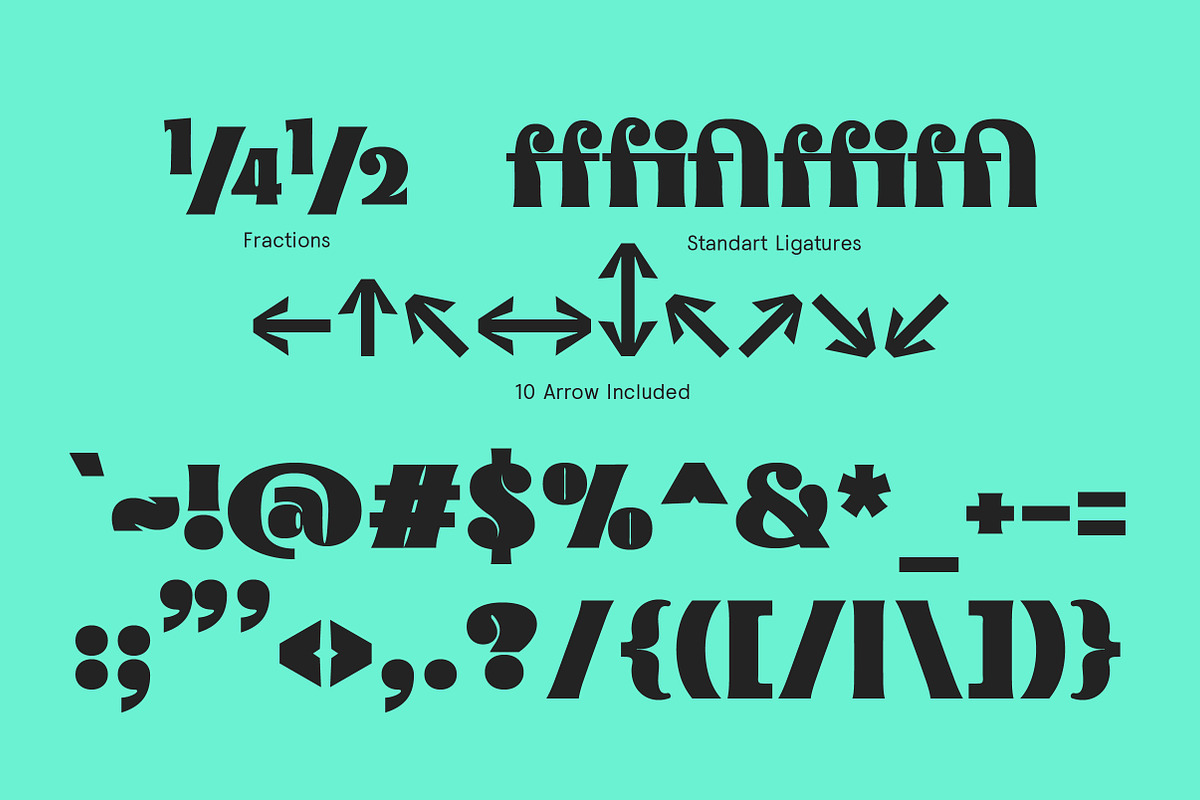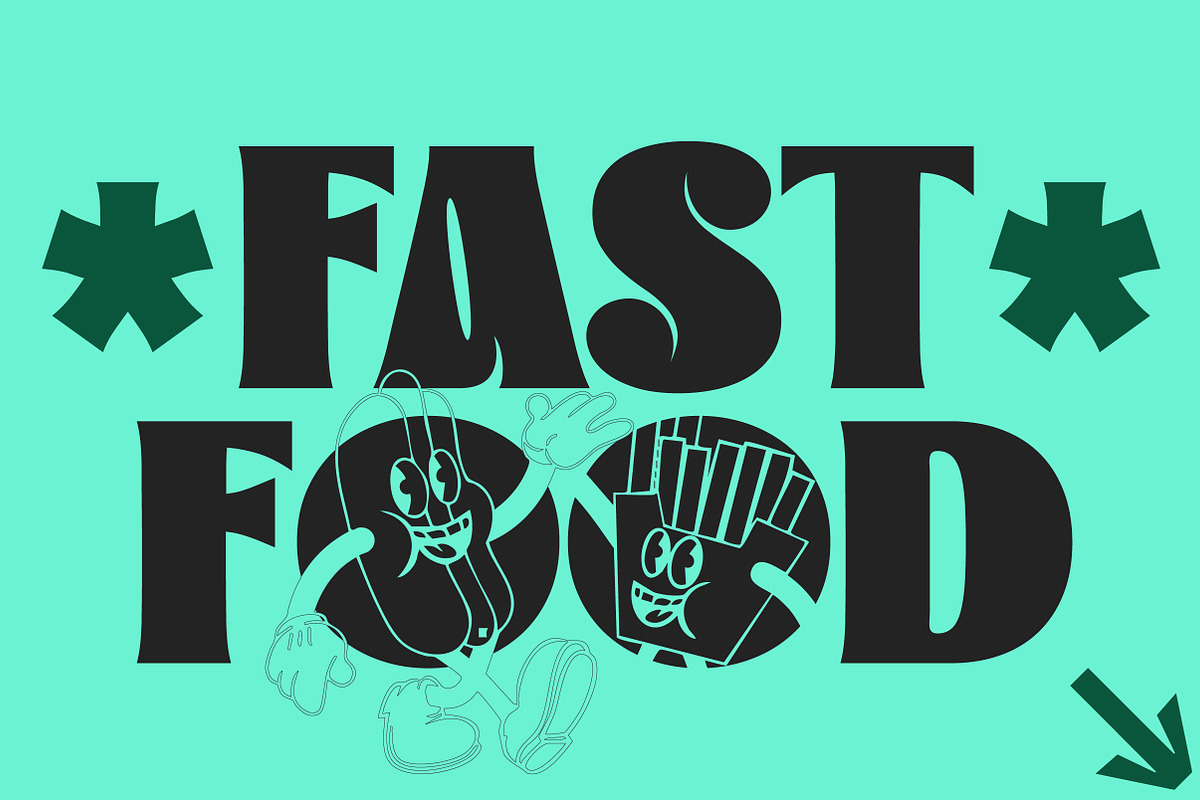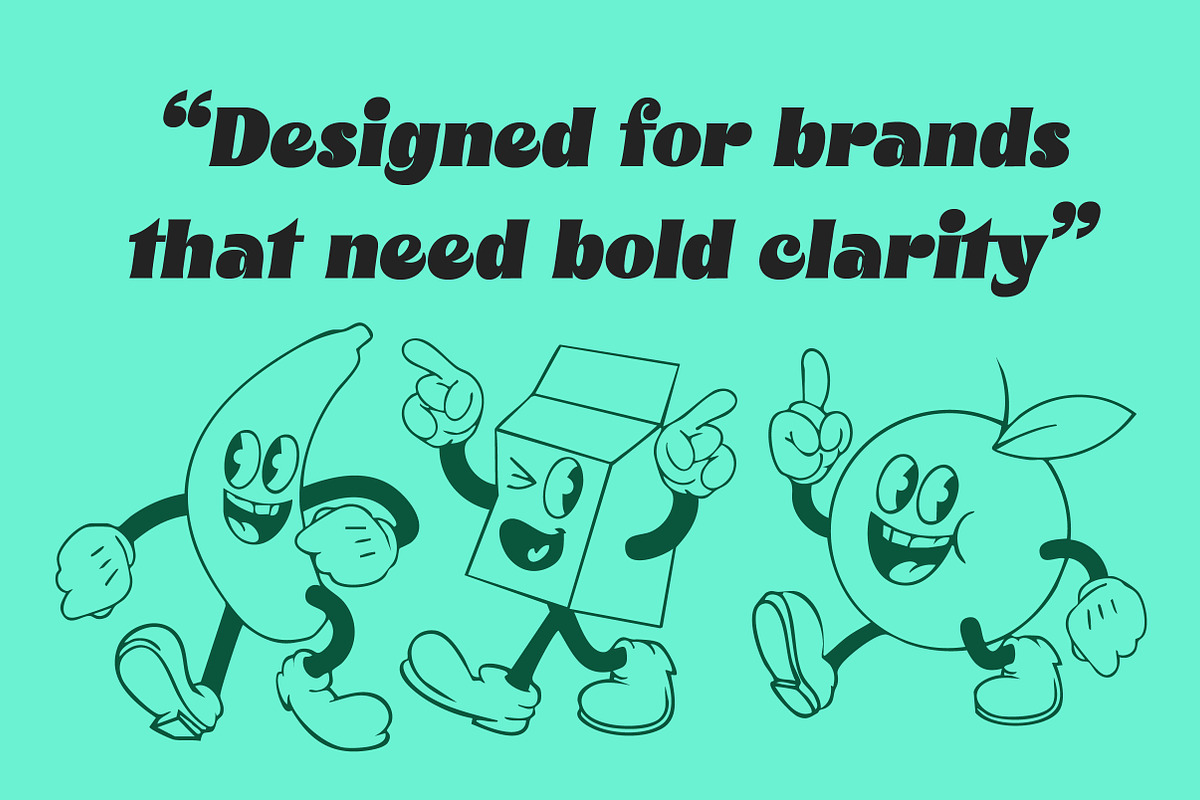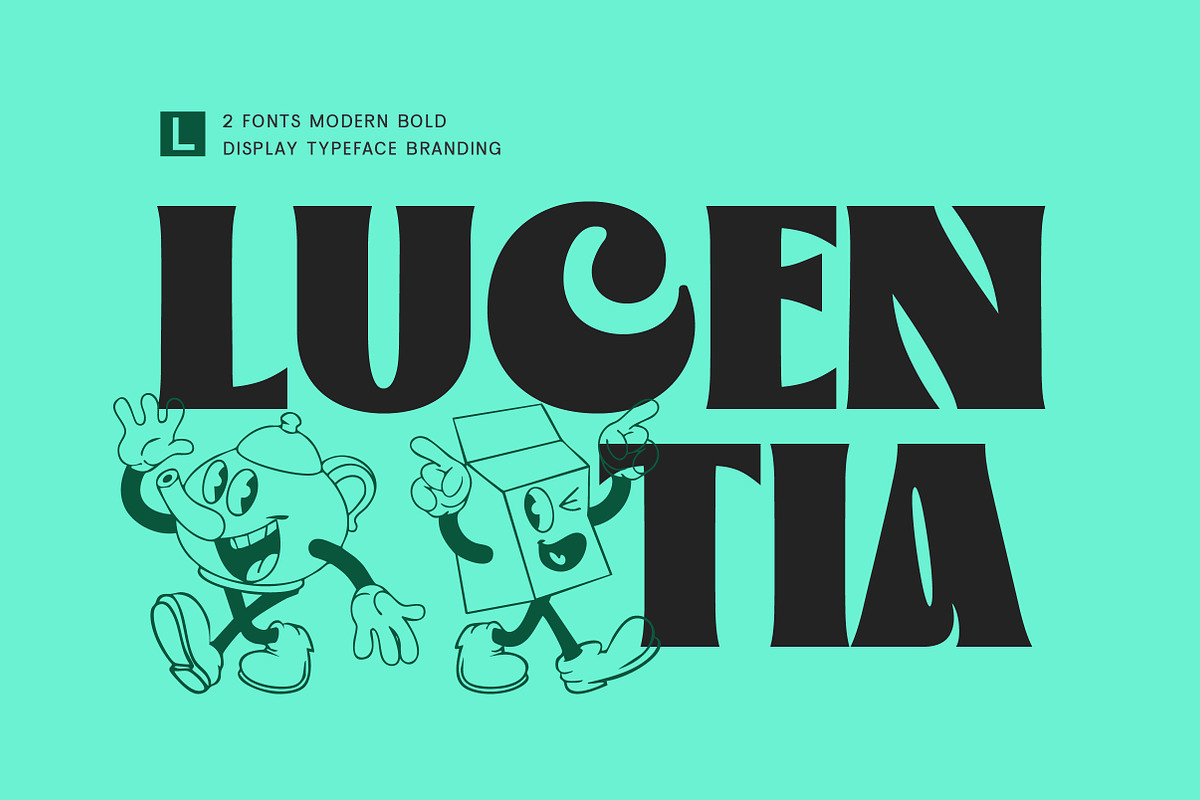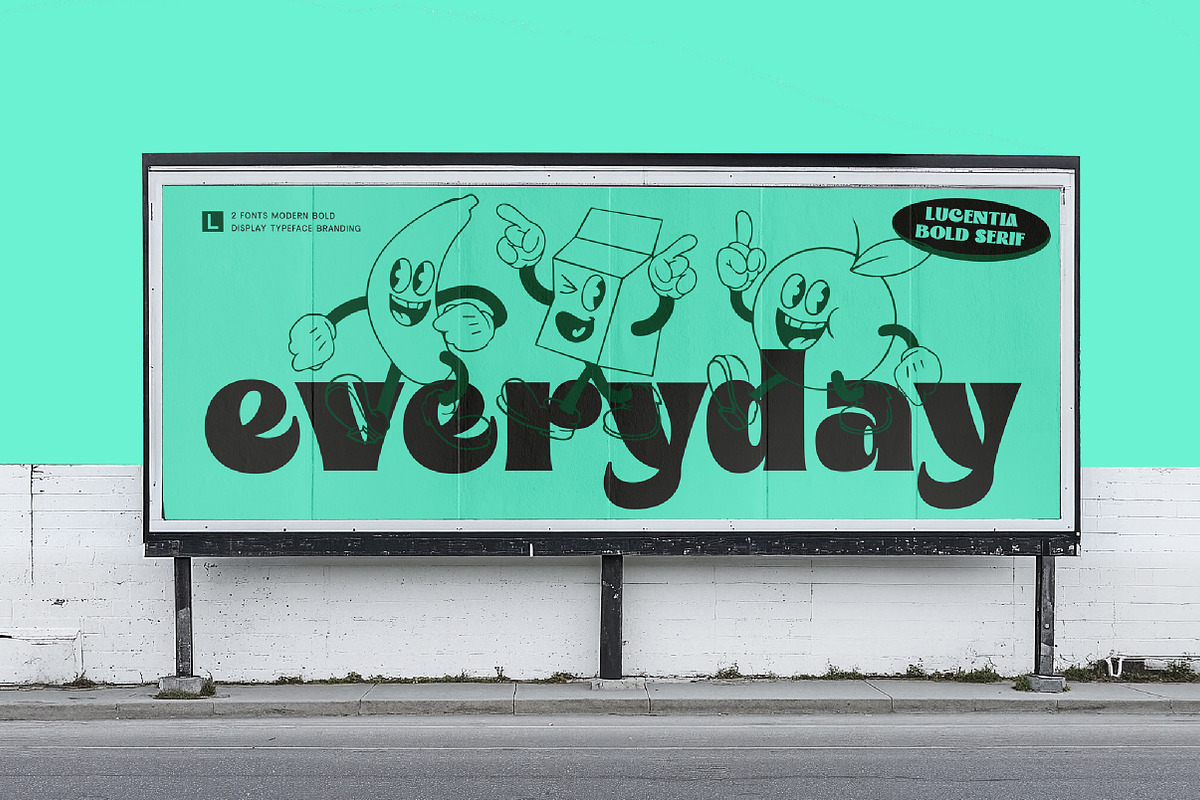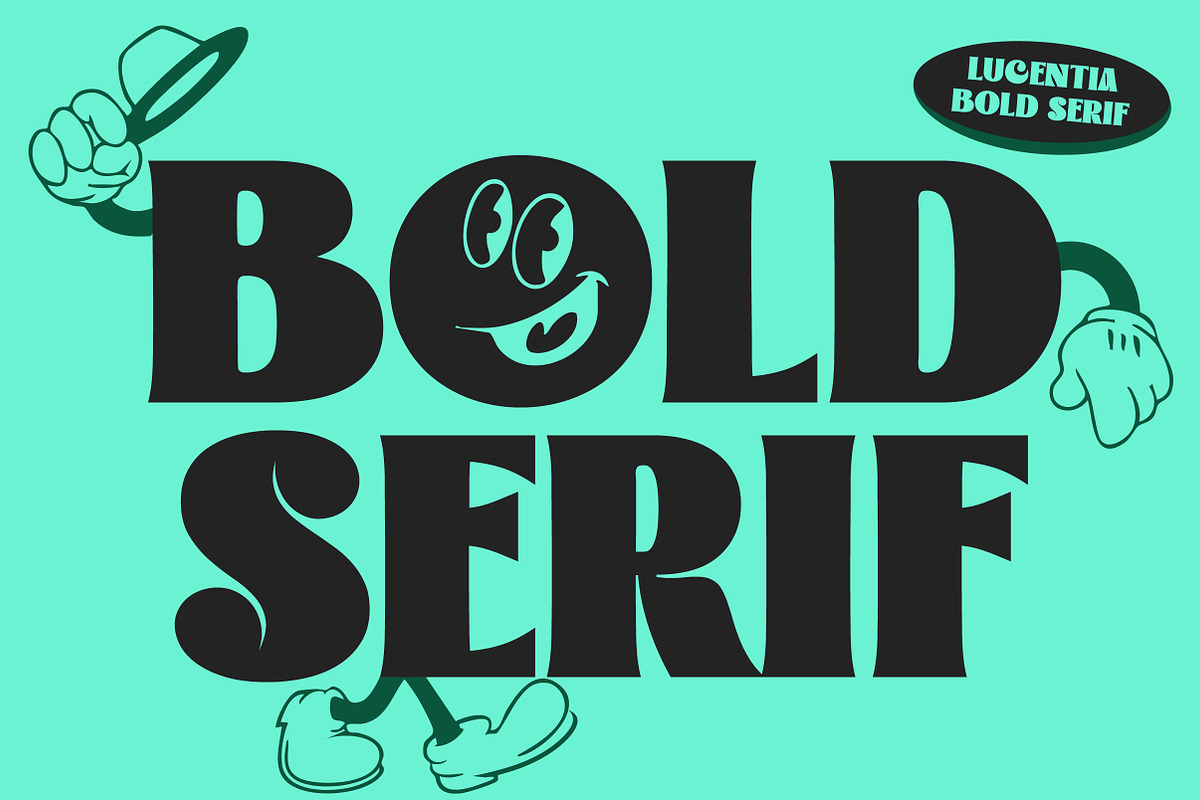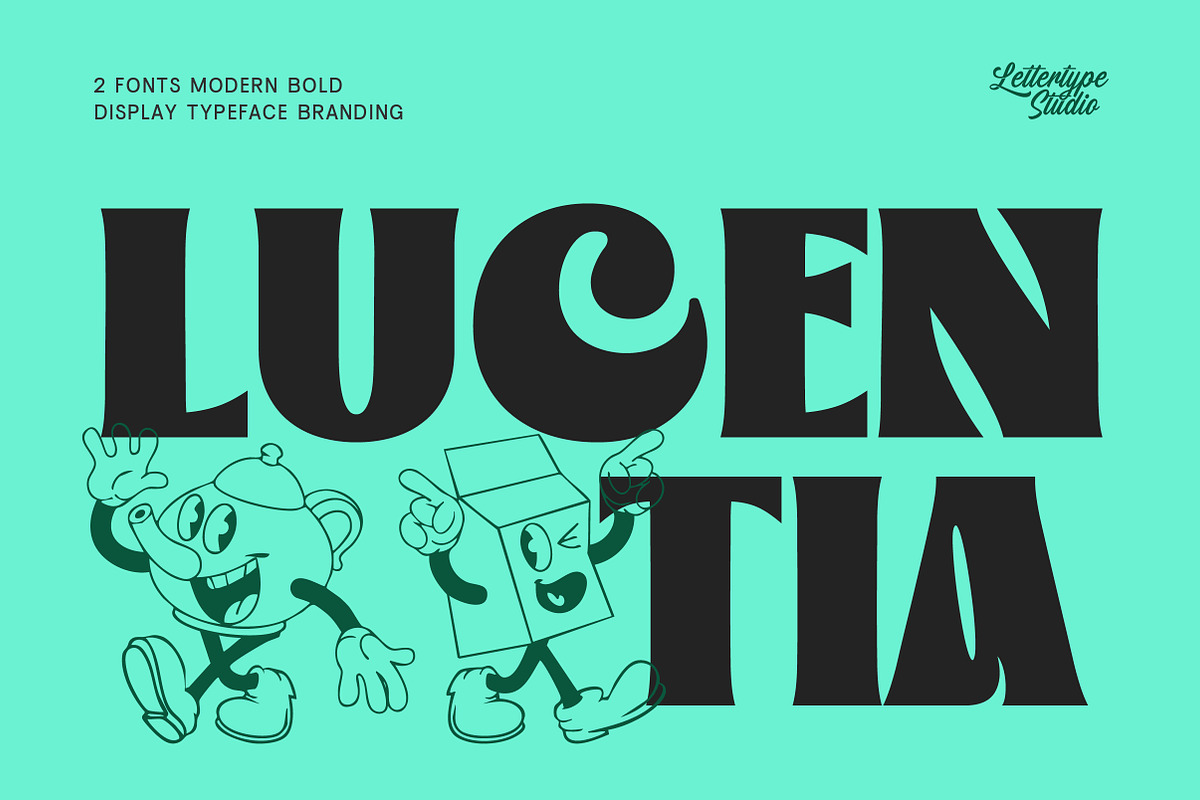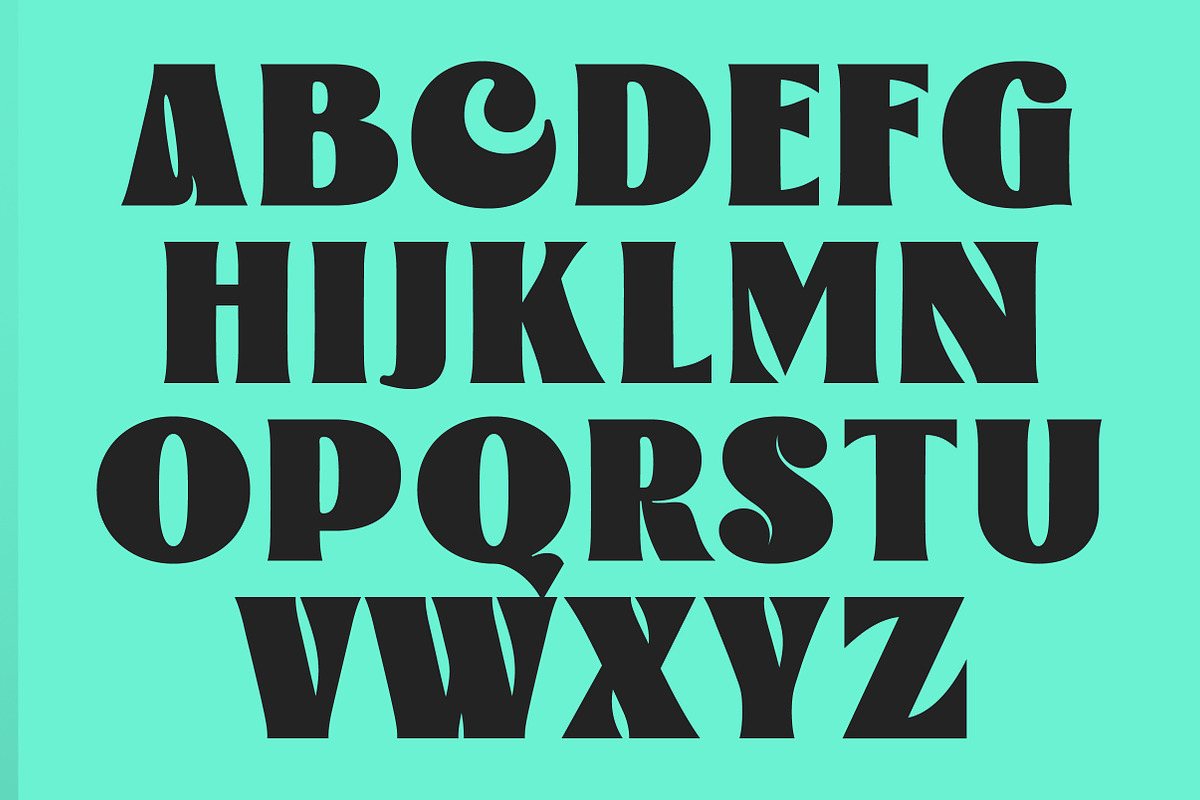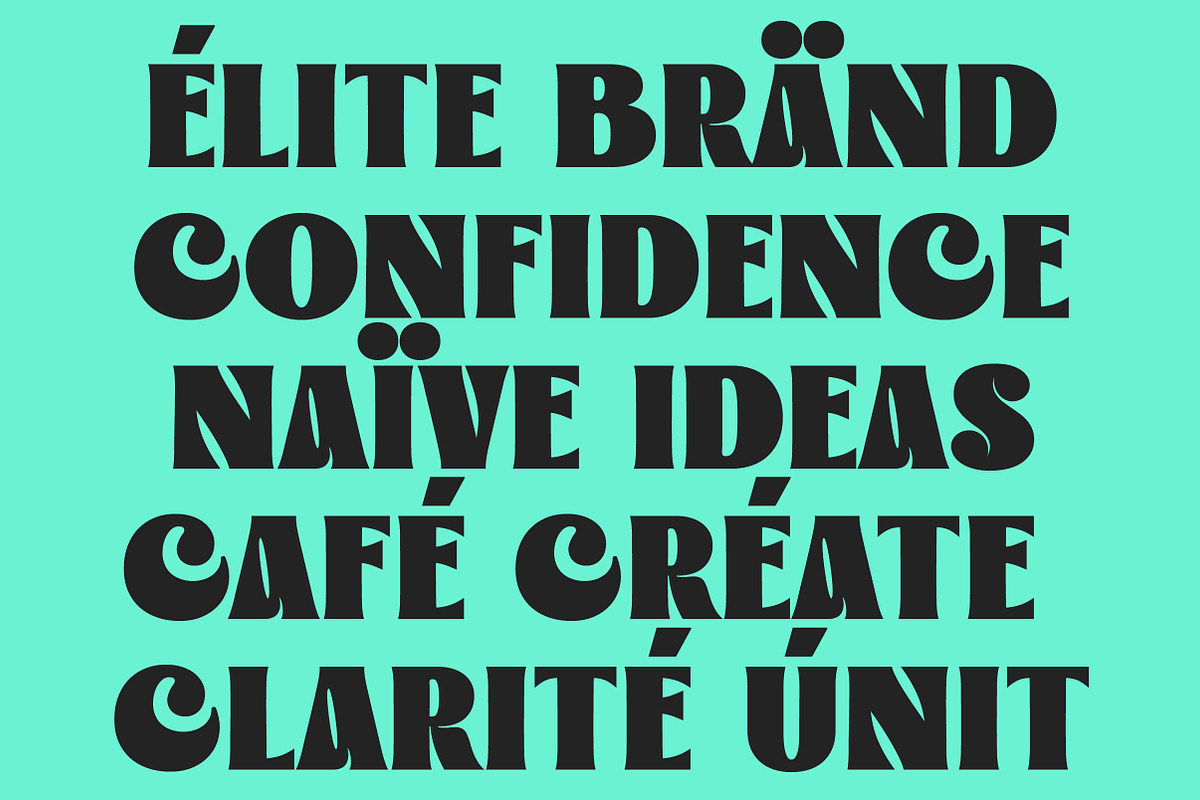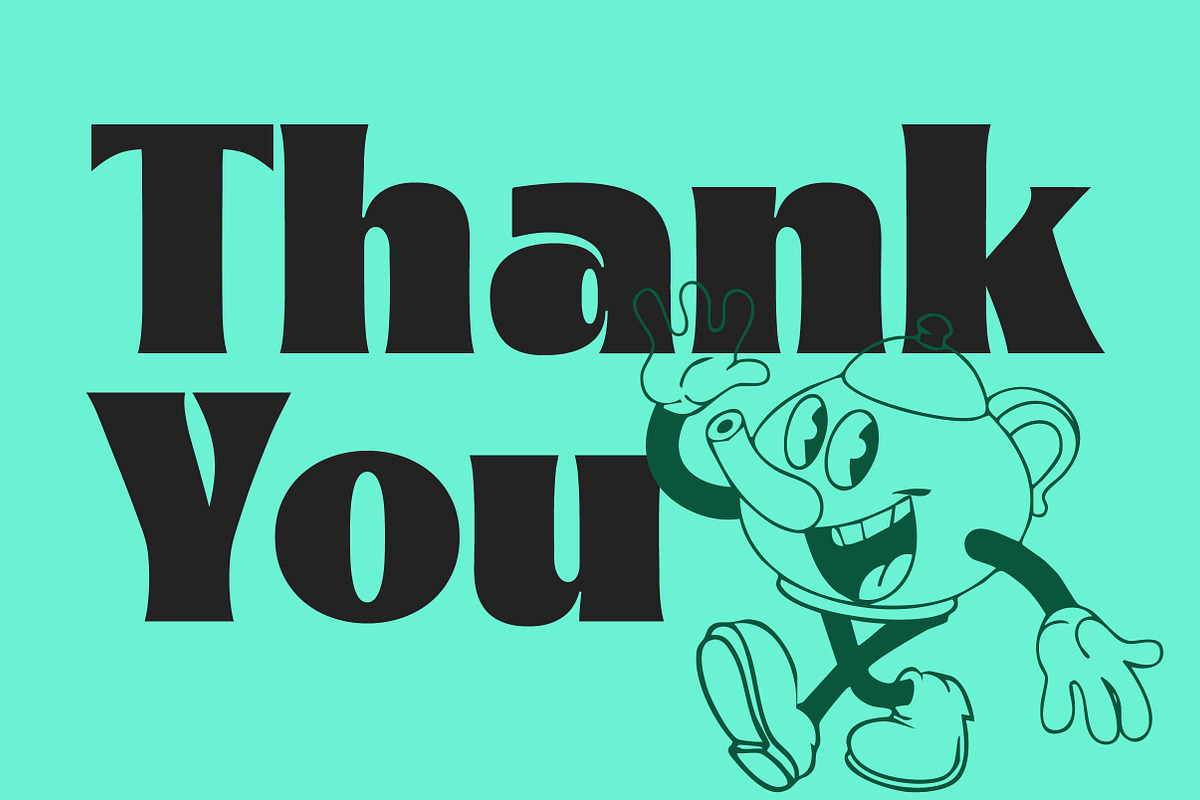
Lucentia - Modern Bold Display
Lucentia is a modern bold display typeface designed to deliver strong visual presence with refined clarity. Built for contemporary branding needs, Lucentia balances bold proportions with clean geometry, making it ideal for logos, headlines, and high-impact editorial layouts. Its confident structure ensures excellent readability while maintaining a modern, professional character.
Designed for designers who want bold typography without visual noise, Lucentia works seamlessly across digital and print applications. Whether used for brand identities, tech-forward visuals, or modern marketing assets, Lucentia provides a powerful typographic foundation that feels current, versatile, and timeless.
Lucentia Features:
- 2 Styles (Regular + Italic)
- Standard Ligatures: ff, fi, fl, ffi, & ffl
- 467 Glyphs Total
- 260+ Languages Supported
- Logo & Brand Identity Design
- Modern Headlines & Editorial Layouts
- Tech & Startup Branding
- Marketing Campaigns & Advertising
- Web Design & Digital Products